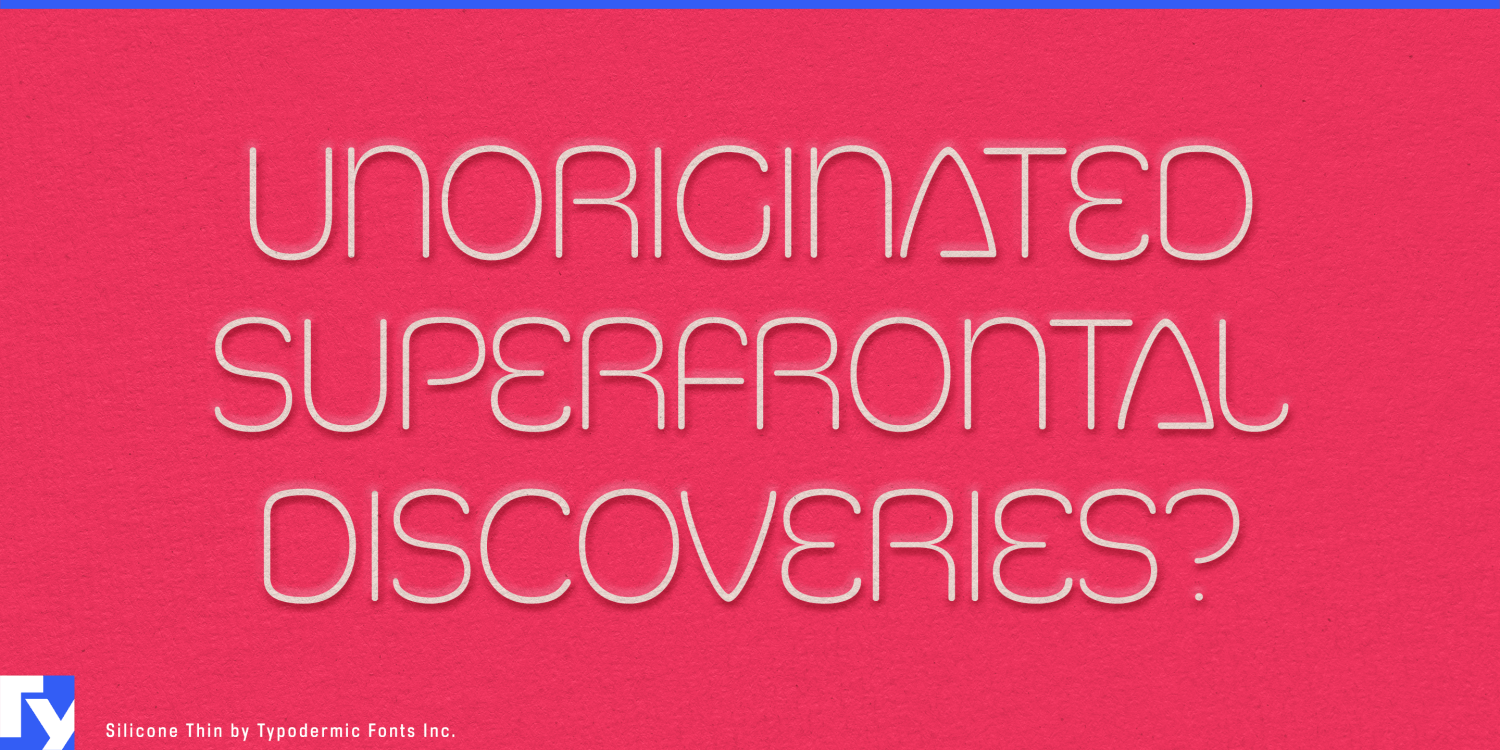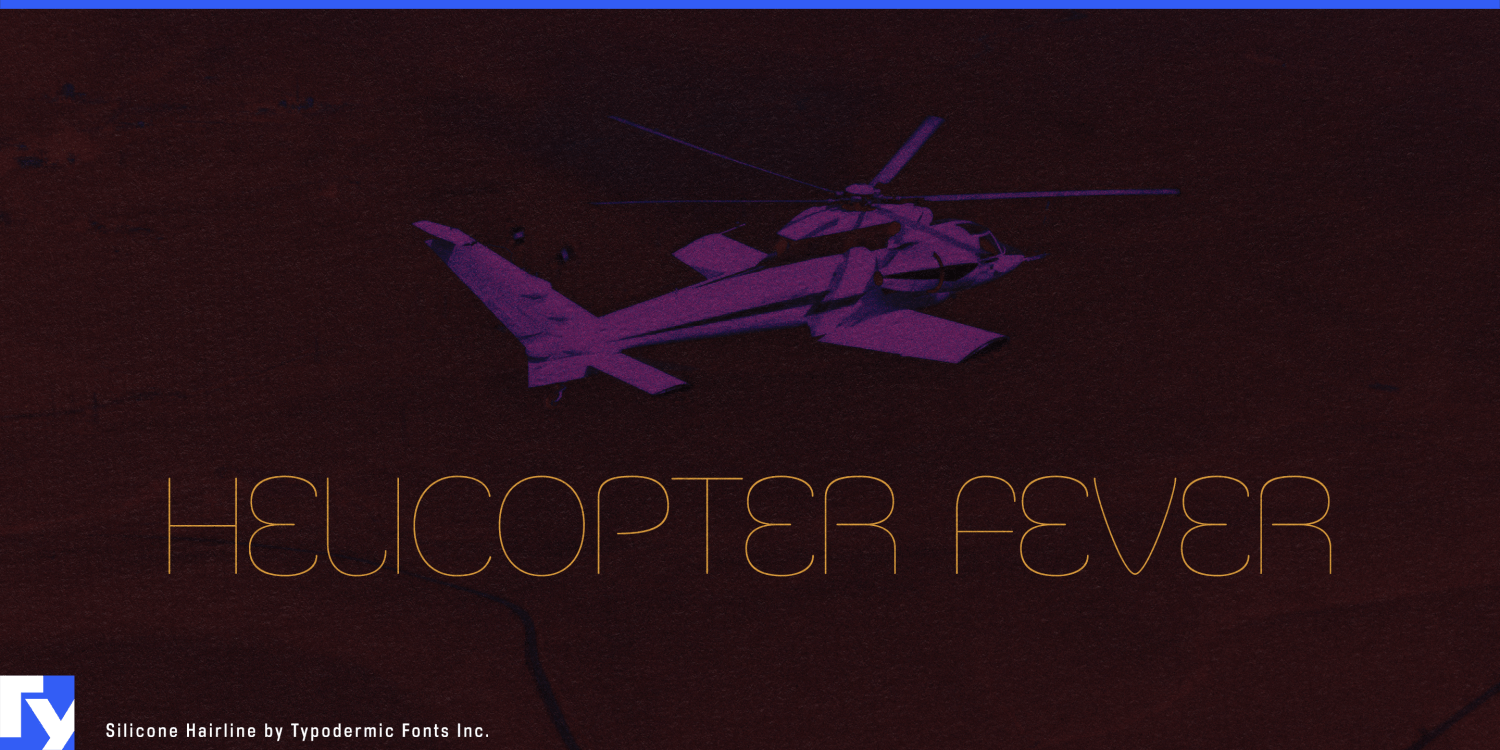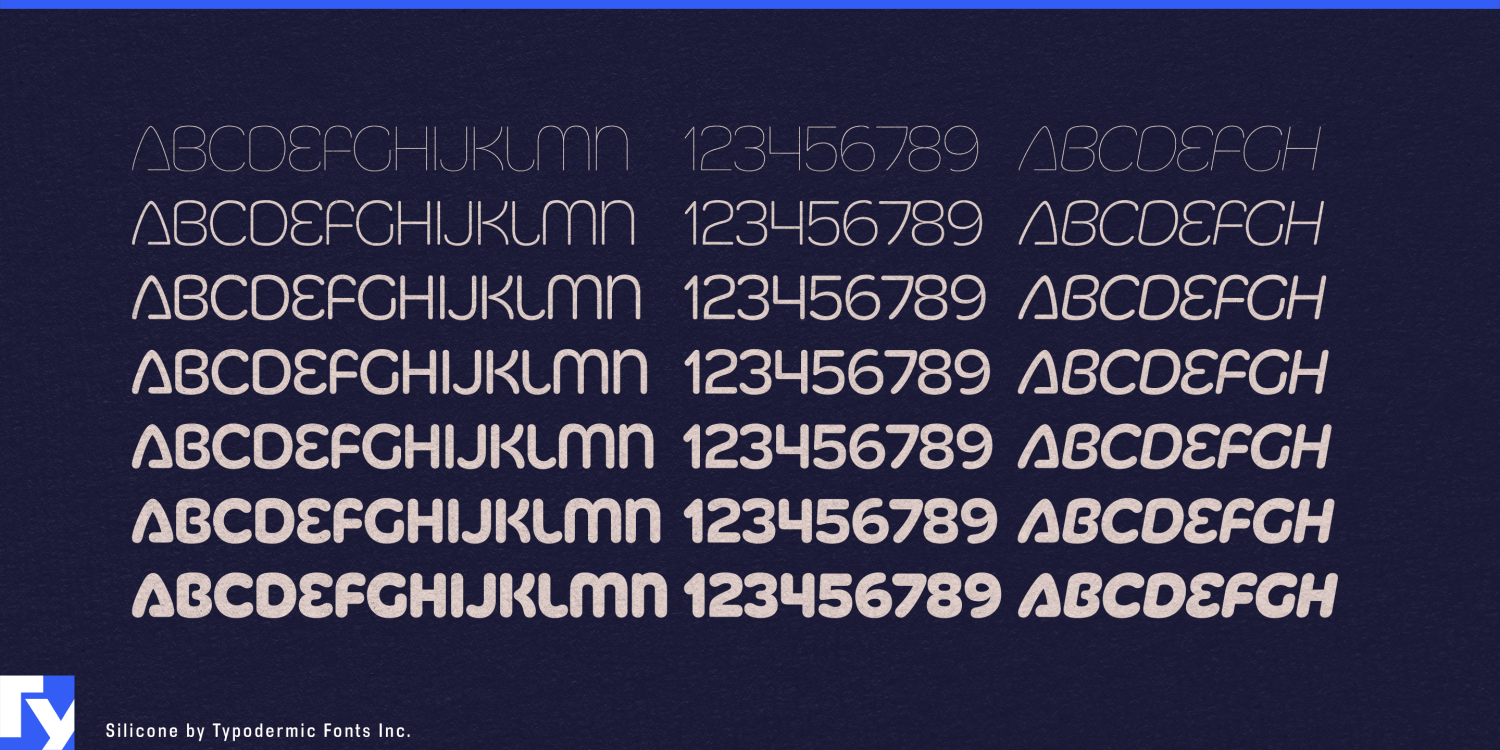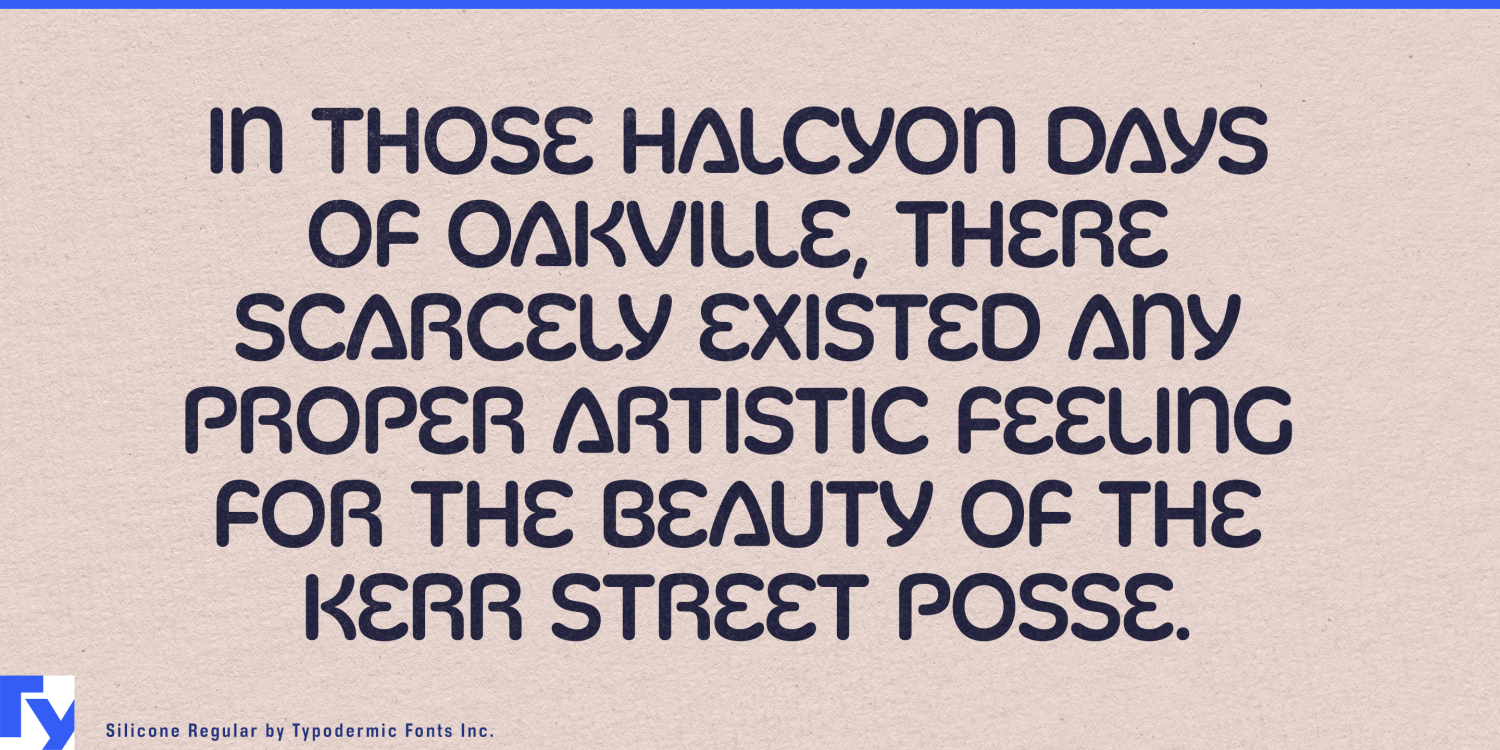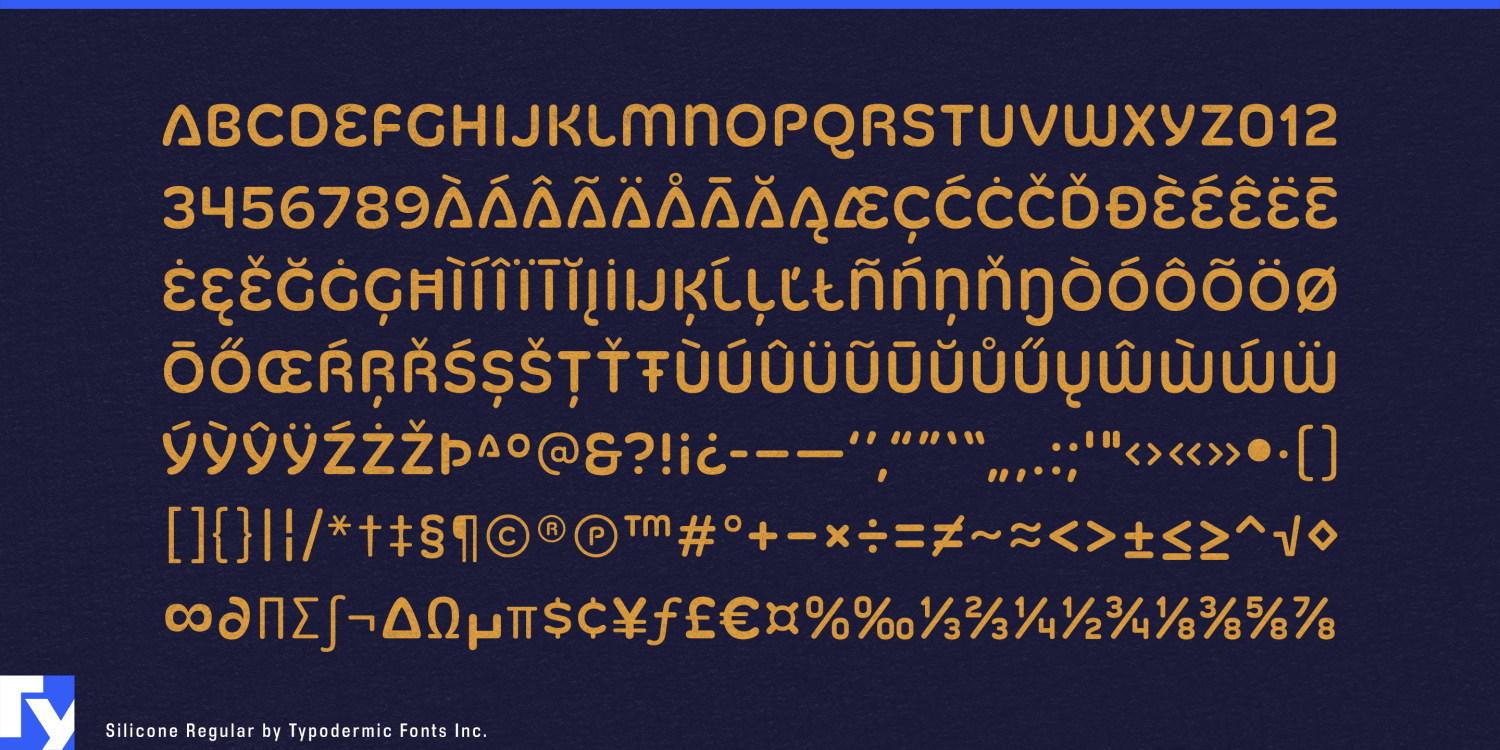
About Silicone
Step into tomorrow with Silicone, a typeface that doesn’t just embrace the future—it defines it. This is a bold declaration of modernity, a synthetic symphony of form and function that pushes the boundaries of typographic expression. Silicone’s…